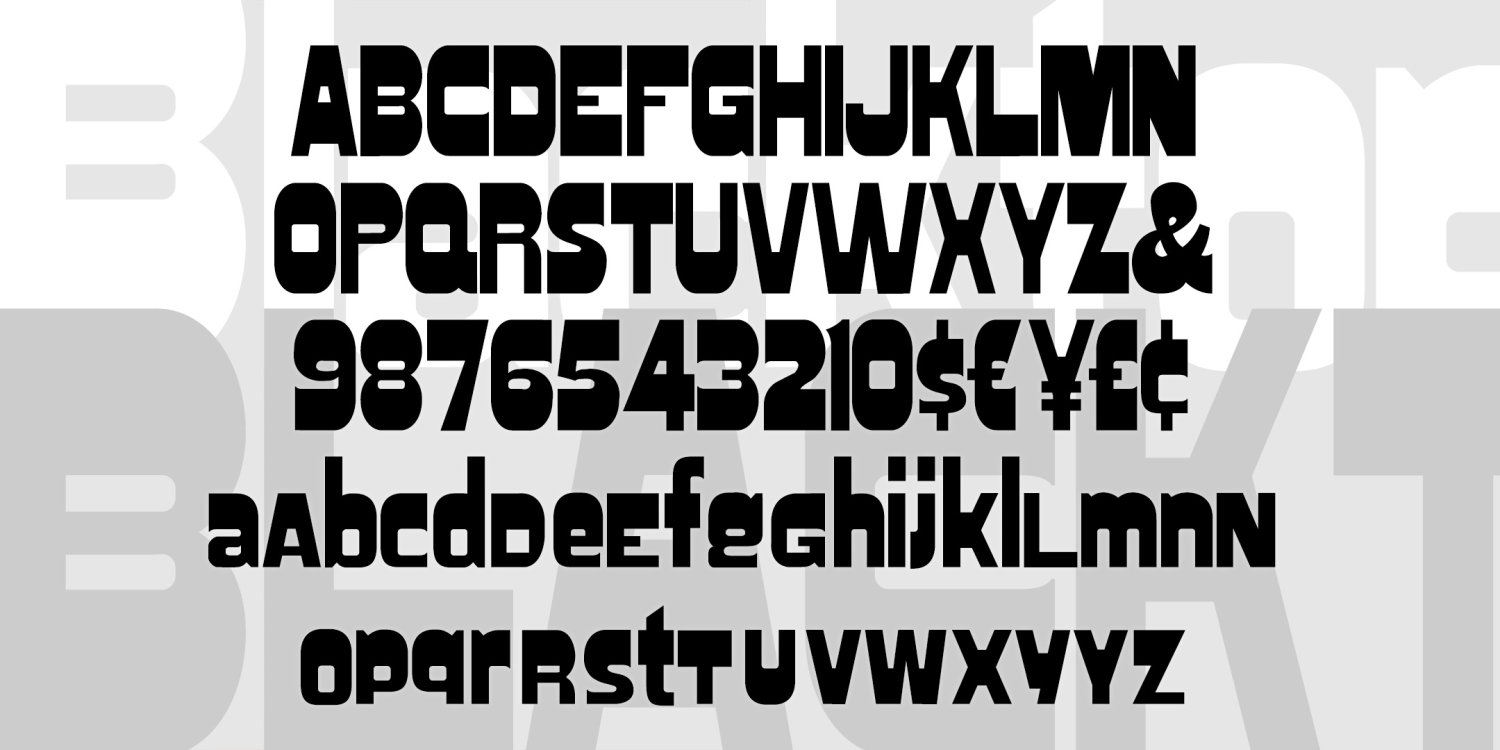
Blacktop
BLACKTOP was inspired by a woodtype typeface variously known as Gothic Bold, Jubilee, or Skidoo Caps. I've completely redrawn it for clean edges and consistent corners. I was attracted to the bold, top-heavy caps and numbers; the lowercase is my own invention, following the example of certain vintage fonts (Hobo, Publicity Gothic, Broadway) in which the descenders do not go below the baseline.